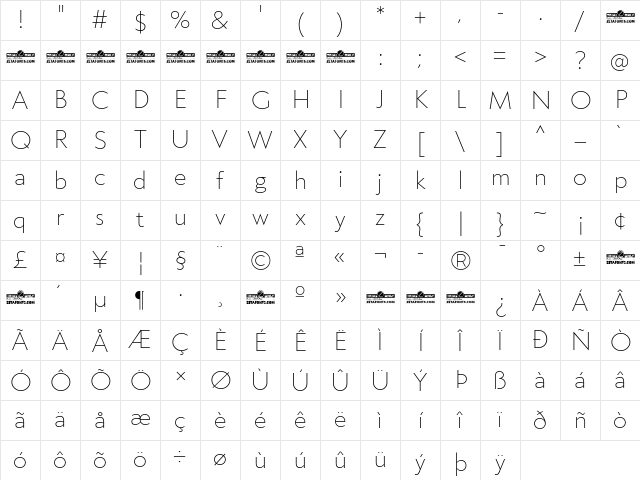
Complete Klein Trial Extralight glyph index. Displaying only characters natively supported by Klein Trial Extralight font.
Klein Trial is a composed and adaptable typeface that performs quietly and consistently across a wide range of design contexts. Its slender proportions lend an understated elegance to any composition.